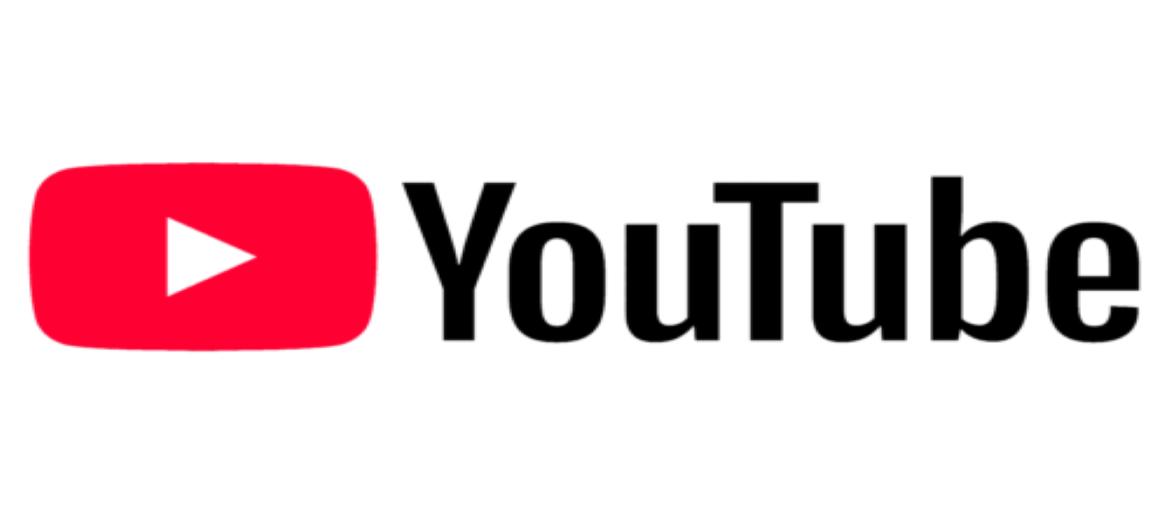
YouTube Font
The YouTube Font plays a crucial role in defining the brand’s modern and approachable visual identity. Characterized by bold geometry and clear readability, the logo uses a modified version of Trade Gothic Bold, a sans-serif typeface known for its balance of strength and simplicity. This design choice ensures high visibility across screens, thumbnails, and mobile applications, maintaining consistency throughout the platform’s global presence.
The strong, minimalistic style of the YouTube Font perfectly complements the platform’s red-and-white color palette, reinforcing its message of creativity and accessibility. Its scalable structure ensures that the logo remains sharp and recognizable on any display size, from video thumbnails to billboards. Designers often use this typeface in projects that aim to express modern digital culture, energy, and community engagement.